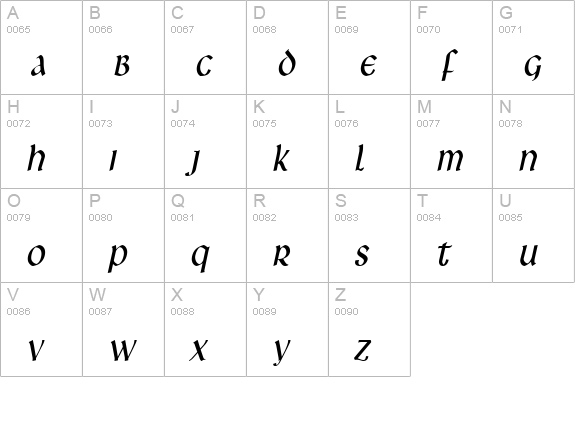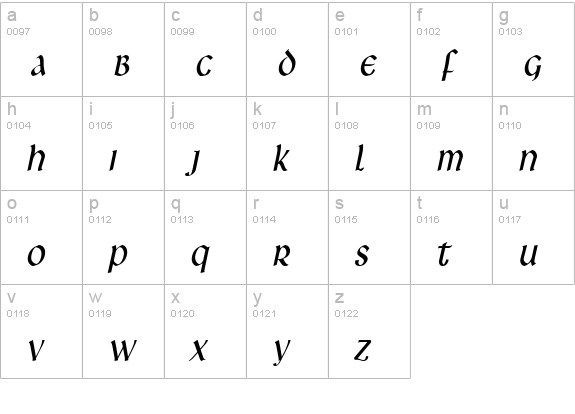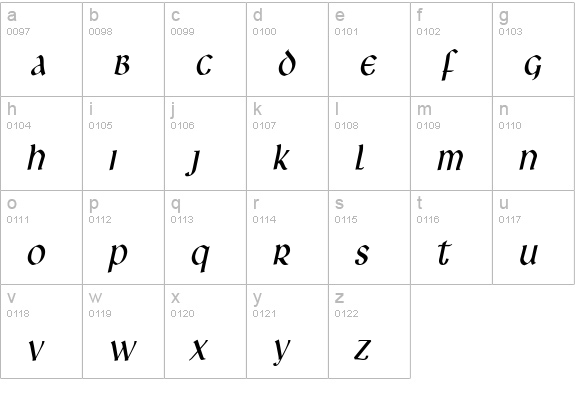
Leo Condensed Italic is a distinctive, condensed-width, italic variant in the Leo typeface family \xE2\x80\x94 well suited to design and typography projects.
Introducing Leo Condensed Italic, a versatile and elegant font that effortlessly combines simplicity with sophistication. This font is the perfect choice for those seeking a sleek and modern design, with a touch of uniqueness. Leo Condensed Italic boasts a condensed form, which allows for maximum impact in limited space. Its italicized style adds a sense of movement and fluidity, making it ideal for headlines, logos, branding materials, and more. Whether you're designing for print or digital media, Leo Condensed Italic will ensure your message stands out and leaves a lasting impression. One of the best features of Leo Condensed Italic is that it is freely available to download at FontsMarket.com. This means that you can easily access and utilize this remarkable font for all your personal and commercial projects without any restrictions. Enjoy the freedom to create stunning designs that capture attention and convey your brand's essence. The carefully crafted letterforms of Leo Condensed Italic exhibit a perfect balance of curves and straight lines, resulting in a harmonious and visually pleasing aesthetic. The subtle slant of the italicized style adds a touch of sophistication and elegance, making it an excellent choice for luxury brands, fashion magazines, and high-end products. With its extensive language support, Leo Condensed Italic ensures that your message can reach a global audience effortlessly. Whether you're creating content in English, French, German, Spanish, or any other language, this font has got you covered. So why wait? Elevate your designs and unleash your creativity with Leo Condensed Italic. Download this outstanding font for free at FontsMarket.com and experience the power of typography in enhancing your visual communication. Stand out from the crowd and make an unforgettable impression with Leo Condensed Italic.